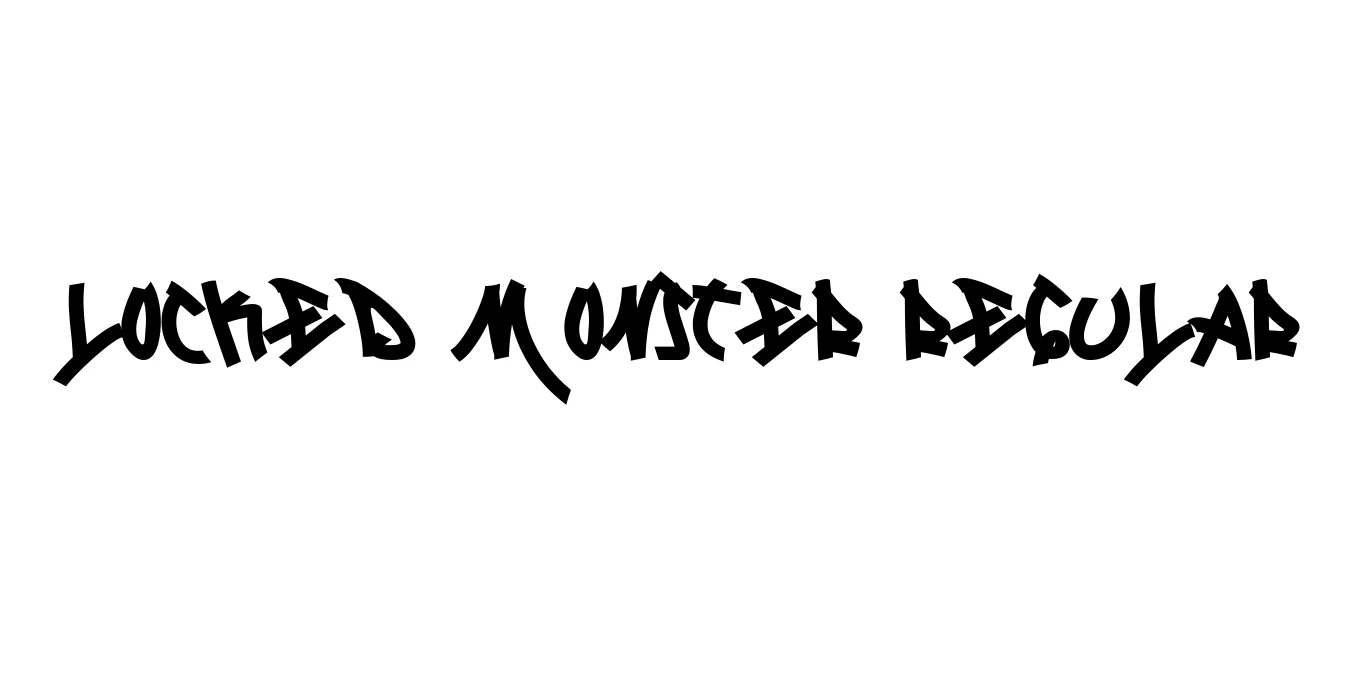
Locked Monster Regular
Designed by Khurasan
| Font Name | Locked Monster |
| Category | Display / Brush |
| Designer | Khurasan |
Locked Monster Regular is a powerful and aggressive display font crafted by Khurasan. It features a bold, hand-drawn brush aesthetic that draws inspiration from classic horror cinematography and urban street art. The strokes are thick and expressive, providing a raw, energetic feel that immediately commands attention in any visual composition.
This typeface is exceptionally well-suited for branding projects that require a strong, masculine, or eerie presence. With its unique character formations and textured edges, Locked Monster serves as a versatile asset for designers aiming to create impactful headlines, merchandise designs, and high-contrast social media graphics that stand out from the crowd.
Locked Monster Regular Best Uses
Ideal for creating a dark, suspenseful, and chilling atmosphere for film titles.
Perfect for edgy streetwear brands, t-shirts, and hoodie graphics.
Grabs attention quickly on platforms like YouTube and Instagram for high-impact content.
Excellent for esports teams or streamers looking for a rugged, aggressive identity.